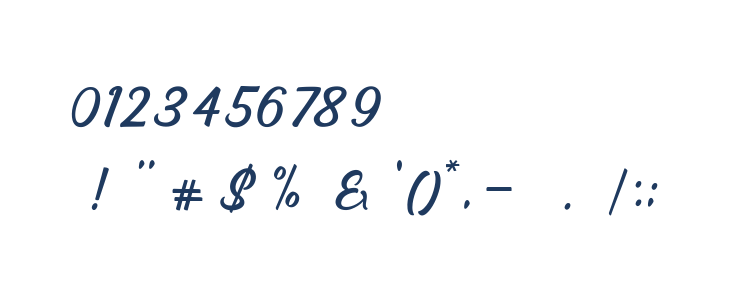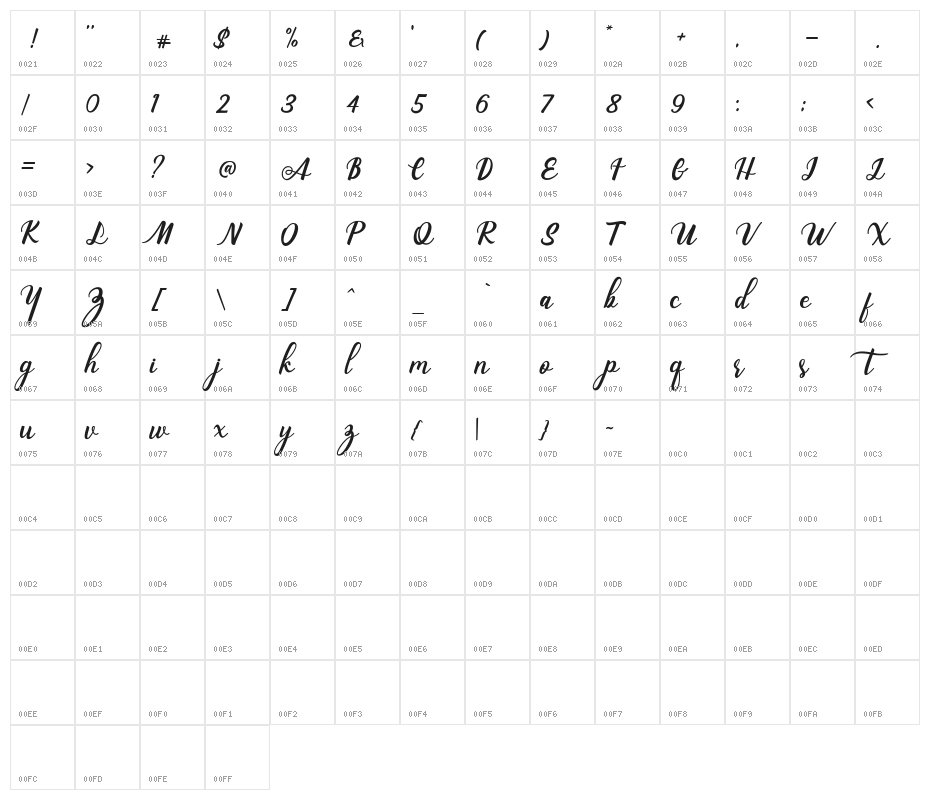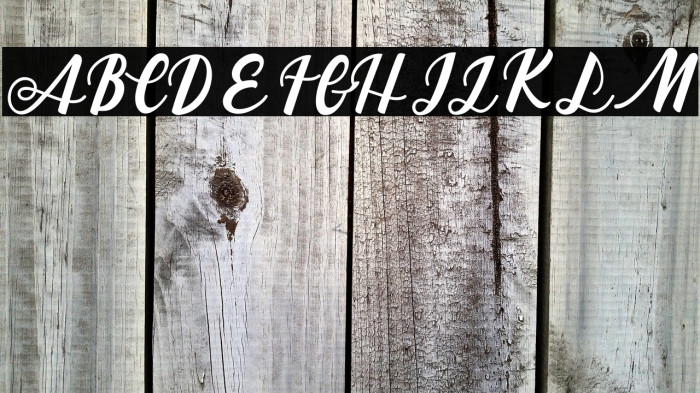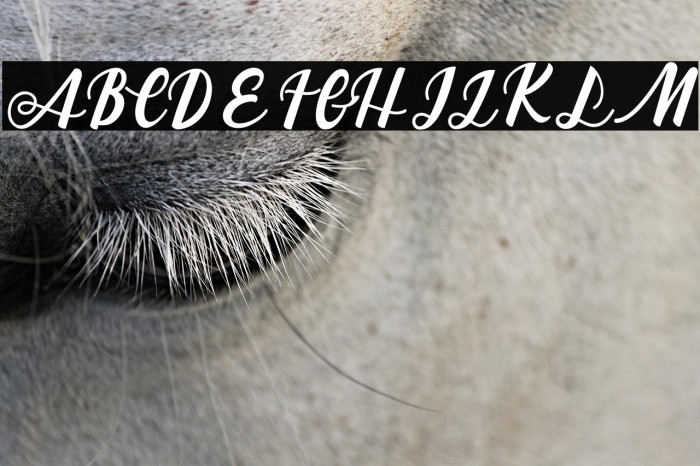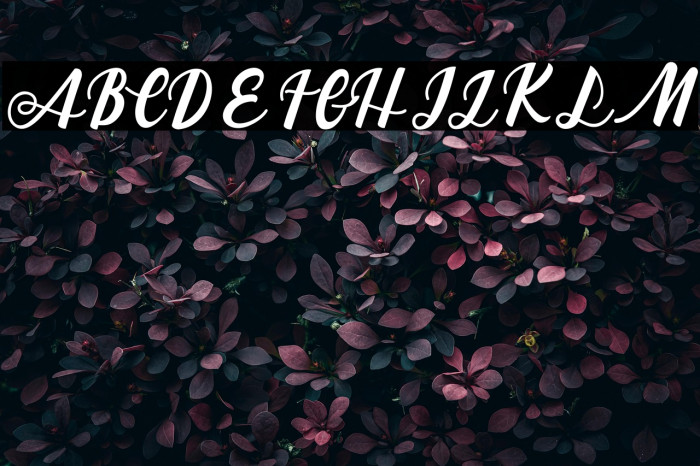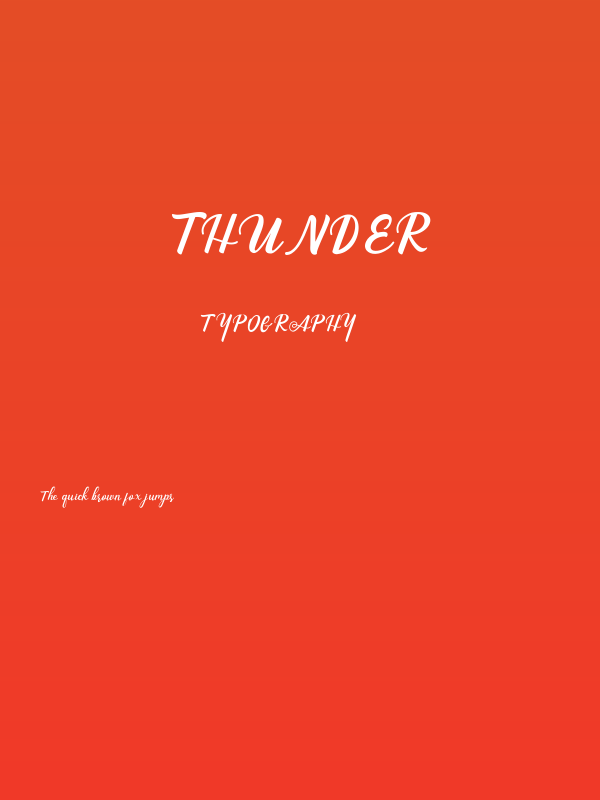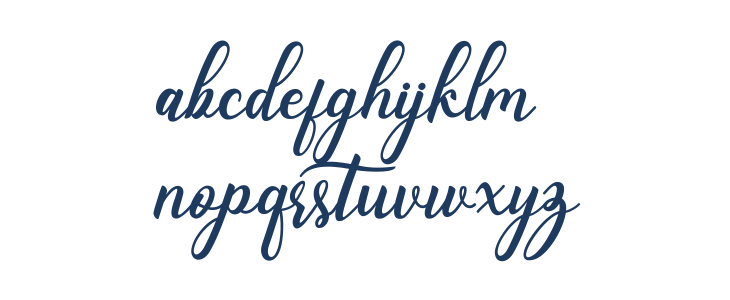
thunder Font
thunder Description
This font features a flowing, cursive style with elegant curves and a sophisticated appearance. The uppercase letters are bold and sweeping, with distinctive flourishes that add a touch of drama. The lowercase letters maintain a consistent slant, providing a harmonious flow that is both graceful and readable. The numerals are clear and well-defined, complementing the overall aesthetic. Special characters are integrated seamlessly, maintaining the font's cohesive look. This script style is ideal for projects that require a touch of elegance and formality.
| Overall Style | Elegant, Formal |
| Use Case | Logos, Invitations, Decorative text |
| Proposed Projects | Ideal for wedding invitations, elegant branding, greeting cards, and formal event programs. |